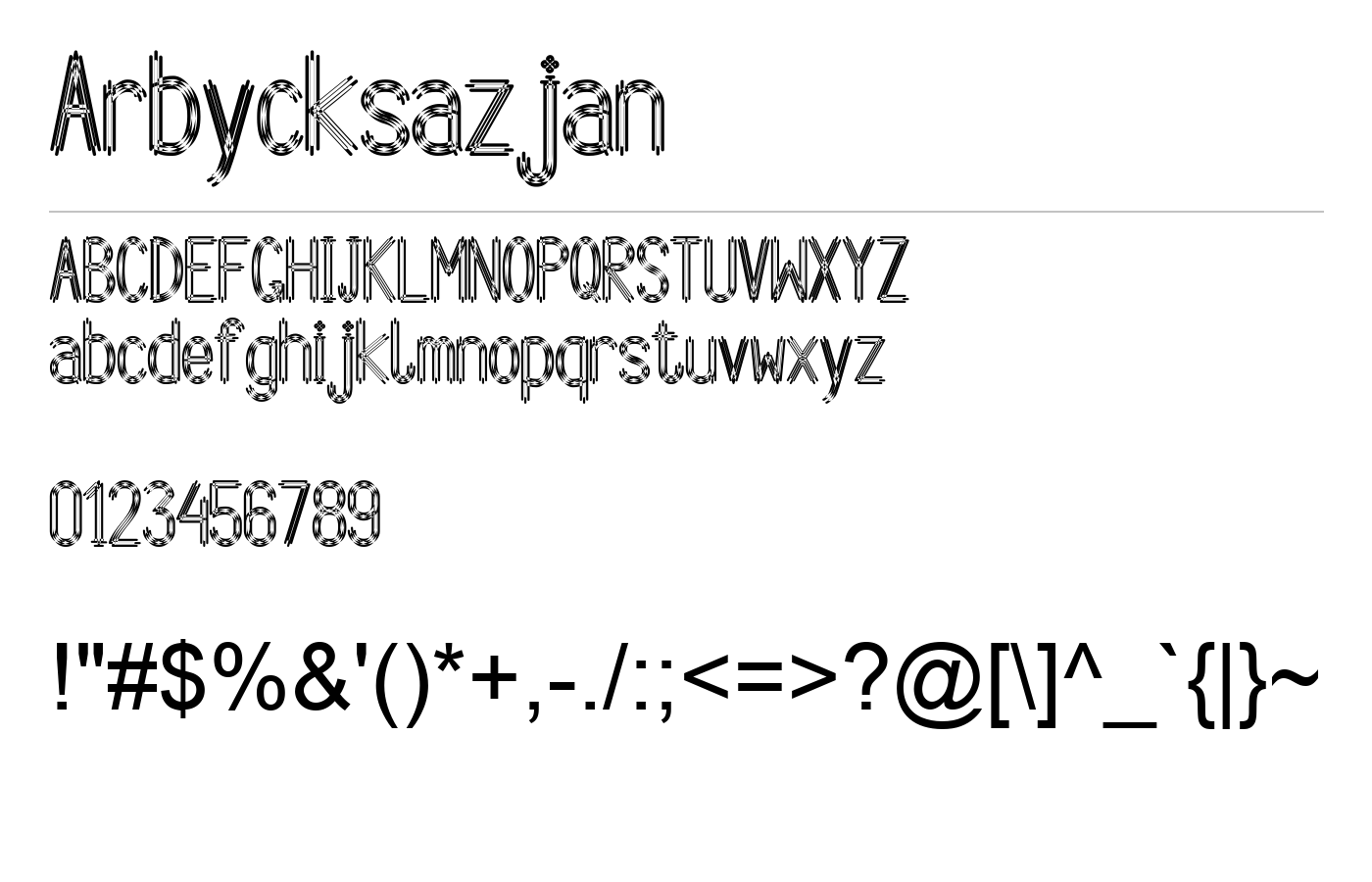
Arbycksazjan is a distinctive condensed sans serif font with a highly textured, layered stroke effect that adds a dynamic, almost glitch-like appearance. Its tall, narrow letterforms and consistent stroke contrast make it ideal for eye-catching headlines, modern posters, or creative branding where a bold, avant-garde personality is desired. This font works best in display settings where its unique style can stand out without compromising readability.
Arbycksazjan Font
Designed by Lab-room for viper78 Clerical Office - viper78 aka Vlad Viperov, Volgograd 2015